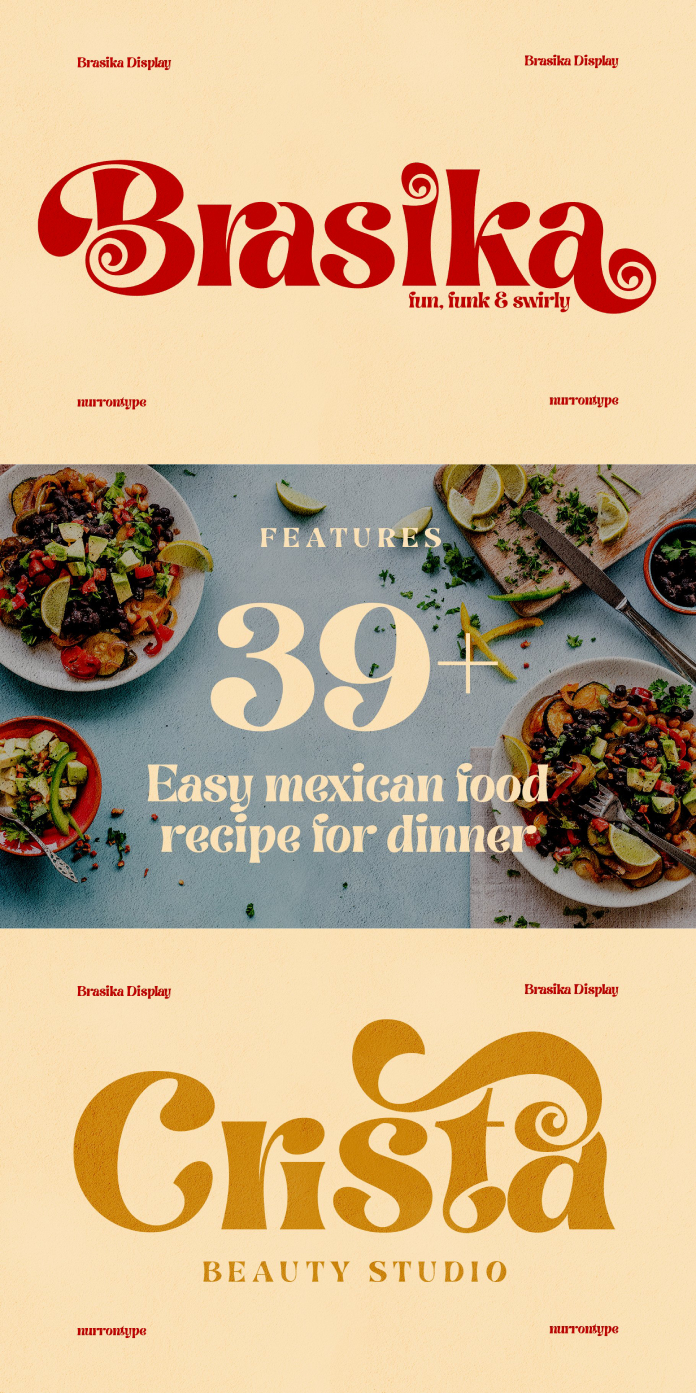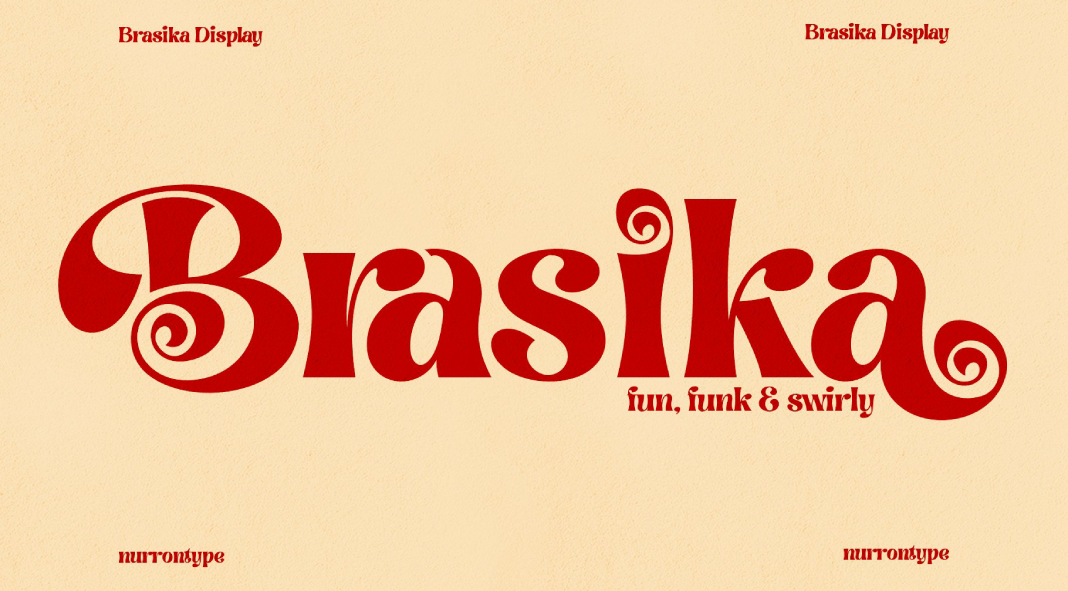
Say hello to Brasika, a fun and swirly display typeface that comes with a funky vintage feel.
Introducing Brasika, a charming and vibrant display typeface from Nurrontype. Its creative design and versatility make it perfect for all kinds of projects. Whether you need something to spice up your logo or an eye-catching magazine title, this is the font for you! It’s also ideal for greeting cards, wedding invitations, Instagram posts, Youtube titles – and so much more! Plus with its excessive language support, there are no boundaries on how far Brasika can take your designs. So why not let yourself be delighted by this fun yet funky swirly typeface?
Go ahead and give Brasika a try today! You won’t regret it. With this vintage-inspired typeface, you’ll be able to create unique designs that your audience will truly appreciate. And because all of the letterforms are made with precision using high-quality software, you can rest assured that your work will go off without a hitch. Try out Brasika today and see the difference for yourself!